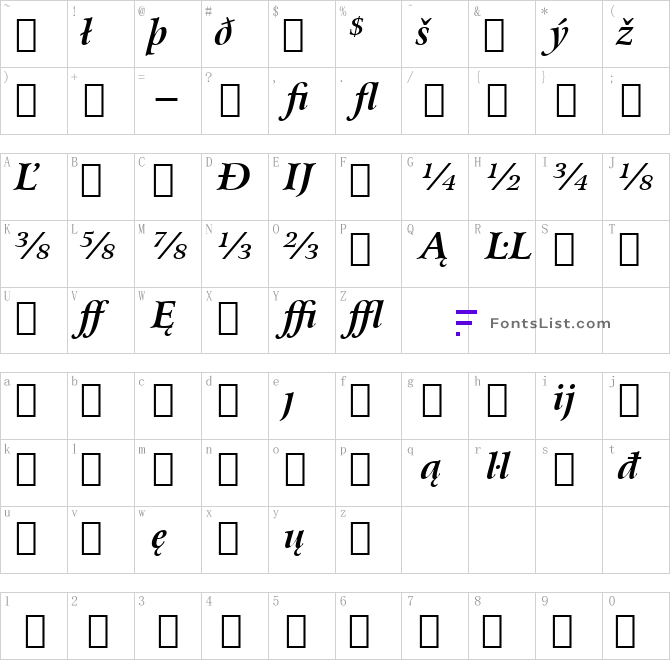
- Font Name:Arrus Ext BT
- Subfamily:Bold Italic Extension
- Subfamily:Bitstream Arrus Bold Italic Extension, Lapidary 721
- Full Name:Arrus Ext BT Bold Italic Extension
Arrus-Ext-BT-Bold-Italic-Extension.ttf is a very beautiful artistic font, Arrus-Ext-BT-Bold-Italic-Extension.ttf is widely used in the design and printing of various books and pictures,Arrus-Ext-BT-Bold-Italic-Extension.ttf has a strong visual impact,Arrus-Ext-BT-Bold-Italic-Extension.ttf is a commonly used font in newspapers, magazines and books, and is used in posters, e-commerce Poster design, store design, logo design, font design and other fields.Arrus-Ext-BT-Bold-Italic-Extension.